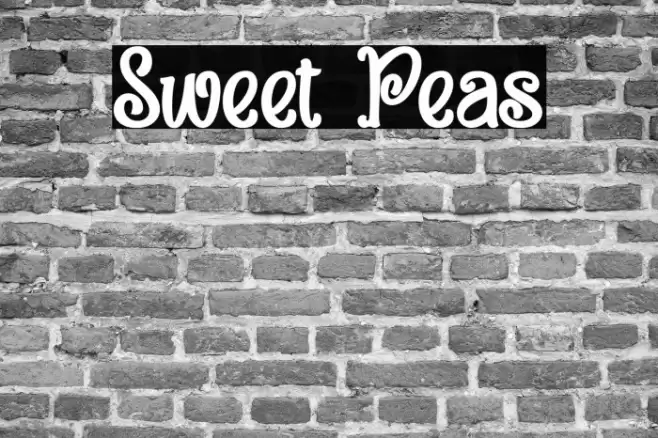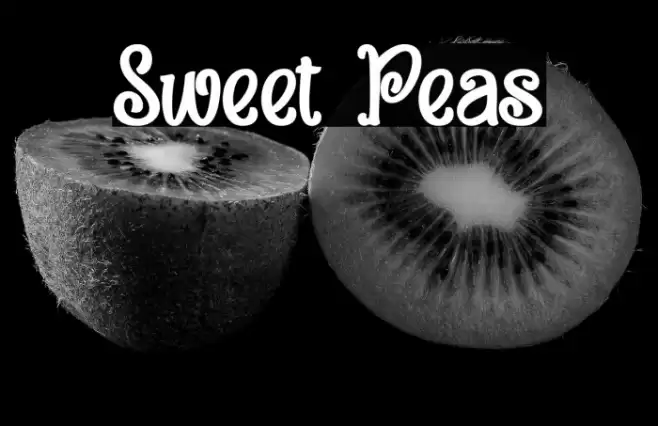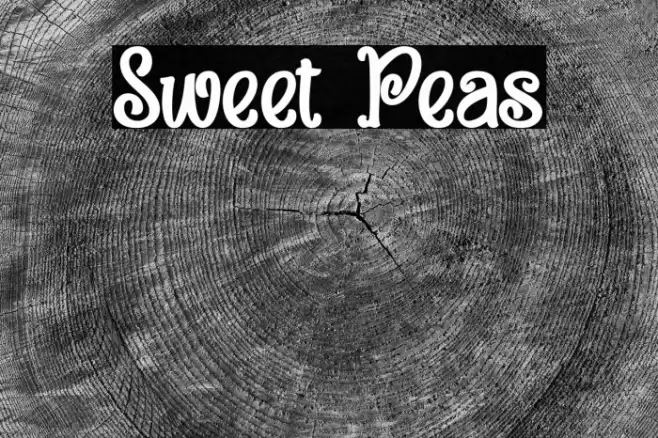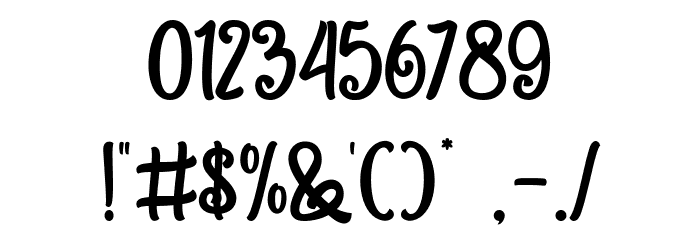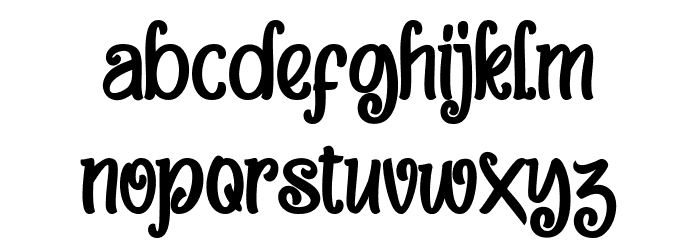
Sweet Peas Font
Sweet Peas Description
This playful and whimsical font features a handwritten style with a decorative flair. Each character is adorned with unique curls and loops, giving it a lively and dynamic appearance. The uppercase letters are bold and expressive, while the lowercase letters maintain a consistent flow with charming embellishments. Numbers and special characters are equally stylized, ensuring a cohesive look across all text. The font's overall aesthetic is both fun and elegant, making it suitable for creative and informal projects.
A playful, decorative handwritten font with expressive curls and loops from Curly fonts.
- Proposed Projects: Ideal for greeting cards, children's books, playful branding, and creative invitations.
- Use Case: Logos, Headlines, Invitations